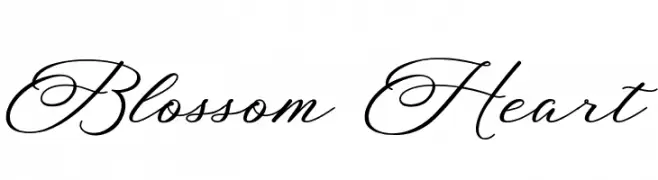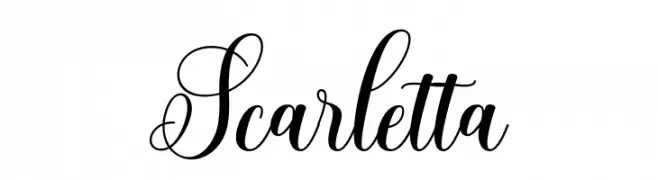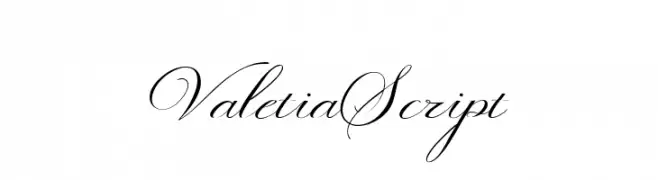
An elegant script font with ornate uppercase and smooth cursive lowercase letters.
An elegant script font with flowing, cursive style and intricate swashes.
An elegant script font with ornate flourishes and flowing lines.
An elegant script font with graceful curves and luxurious swashes.
An elegant script font with flowing cursive style and intricate swashes.
An elegant cursive font with ornate swashes and loops.
An elegant and sophisticated script font with intricate swirls and flourishes.
An elegant script font with flowing, interconnected letters and ornate flourishes.
A sophisticated, elegant handwritten font with fluid, connected letterforms.
An elegant script font with intricate swirls and flowing lines.